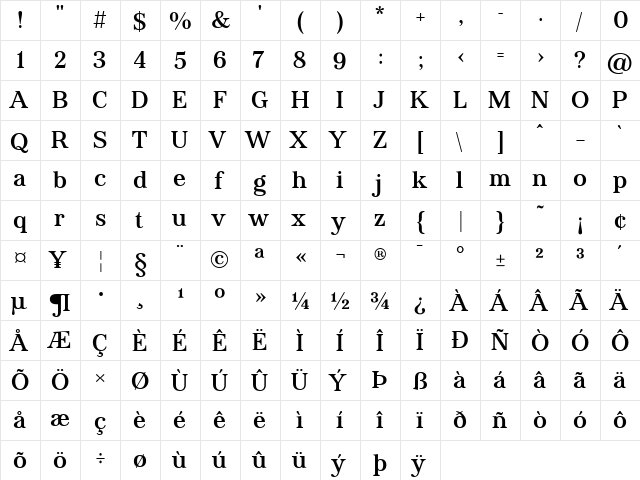
Virgula Vulgaris Bold
| Foundry | Levi Szekeres |
| Designer | Levi Szekeres |
Design Context for Virgula Vulgaris Typeface
Virgula Vulgaris offers clean, dependable letterforms without strong stylistic allegiance, making it a practical choice for designers who need flexibility. Its bold stroke weight gives it real presence on the page.